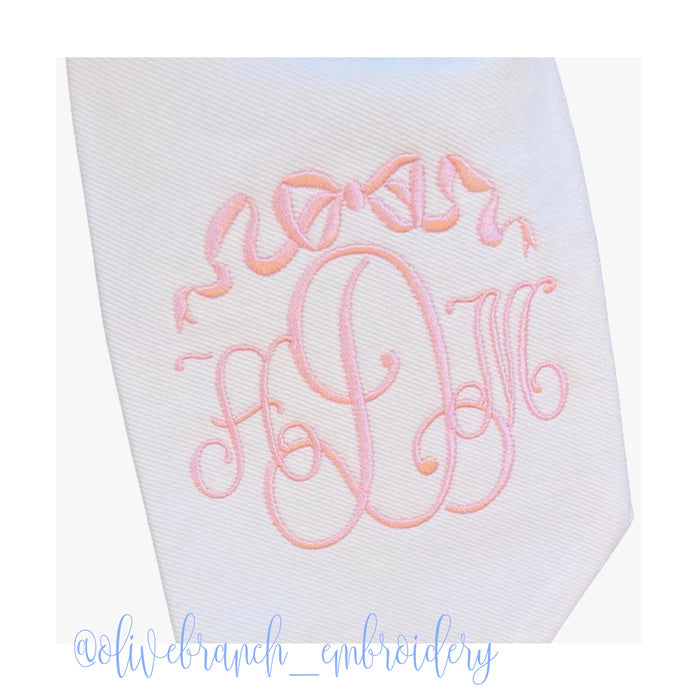
Eliza Embroidery Font for Monogramming
The Eliza Embroidery Font is your go-to choice for stunning monogramming! This versatile package includes 6 sizes in satin stitching: .5", 1", 1.5", 2", 2.5", 3", and 3.5". Designed for embroidery machines, the Eliza Font beautifully complements our exclusive Ginger Jar embroidery designs.